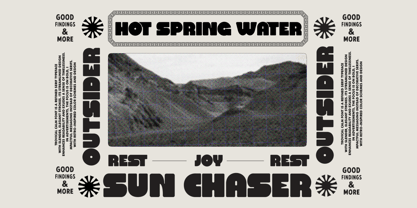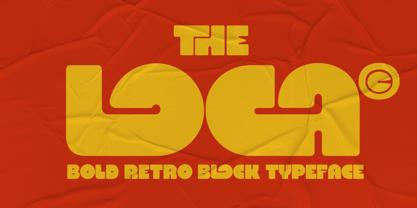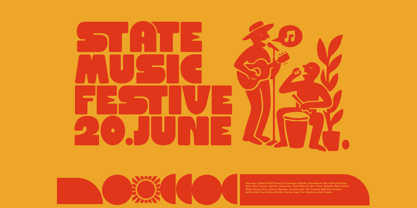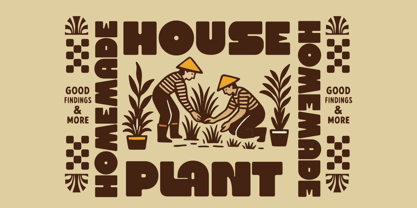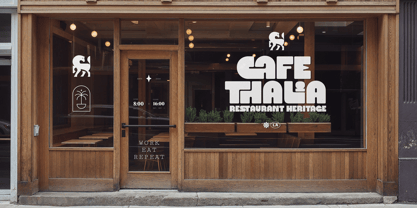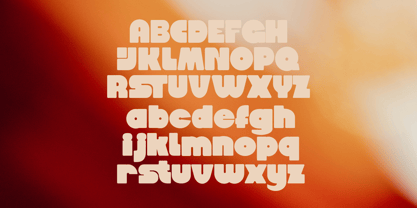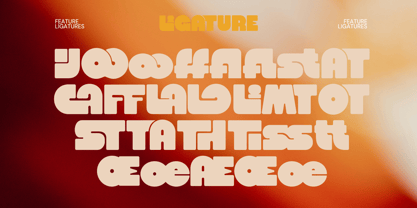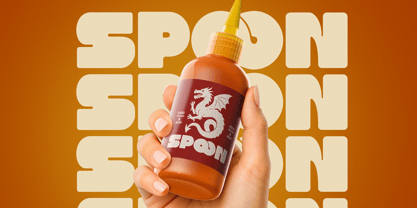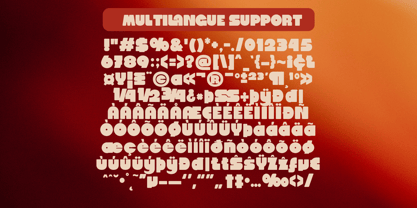
Fd Loca
The Fd Loca Font Family was designed by Ramandhani Nugraha and published by Fortunes Co. Fd Loca contains 1 styles. More about this family
Introducing The Loca, a bold retro block typeface that captures the essence of 70s sunshine and street culture. With its chunky shapes, rounded corners, and playful letterforms, this font brings a vibrant attitude and nostalgic charm to any design.